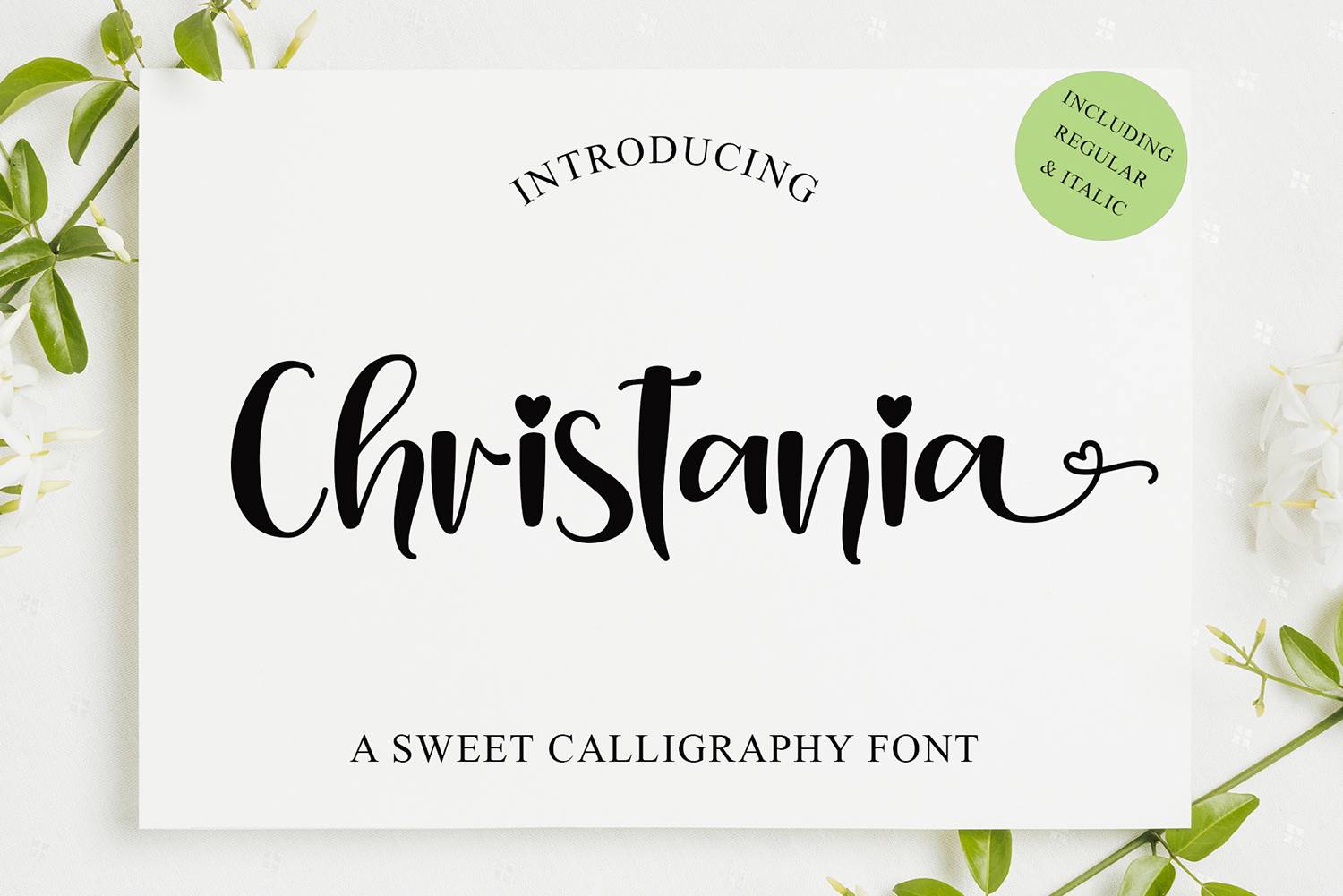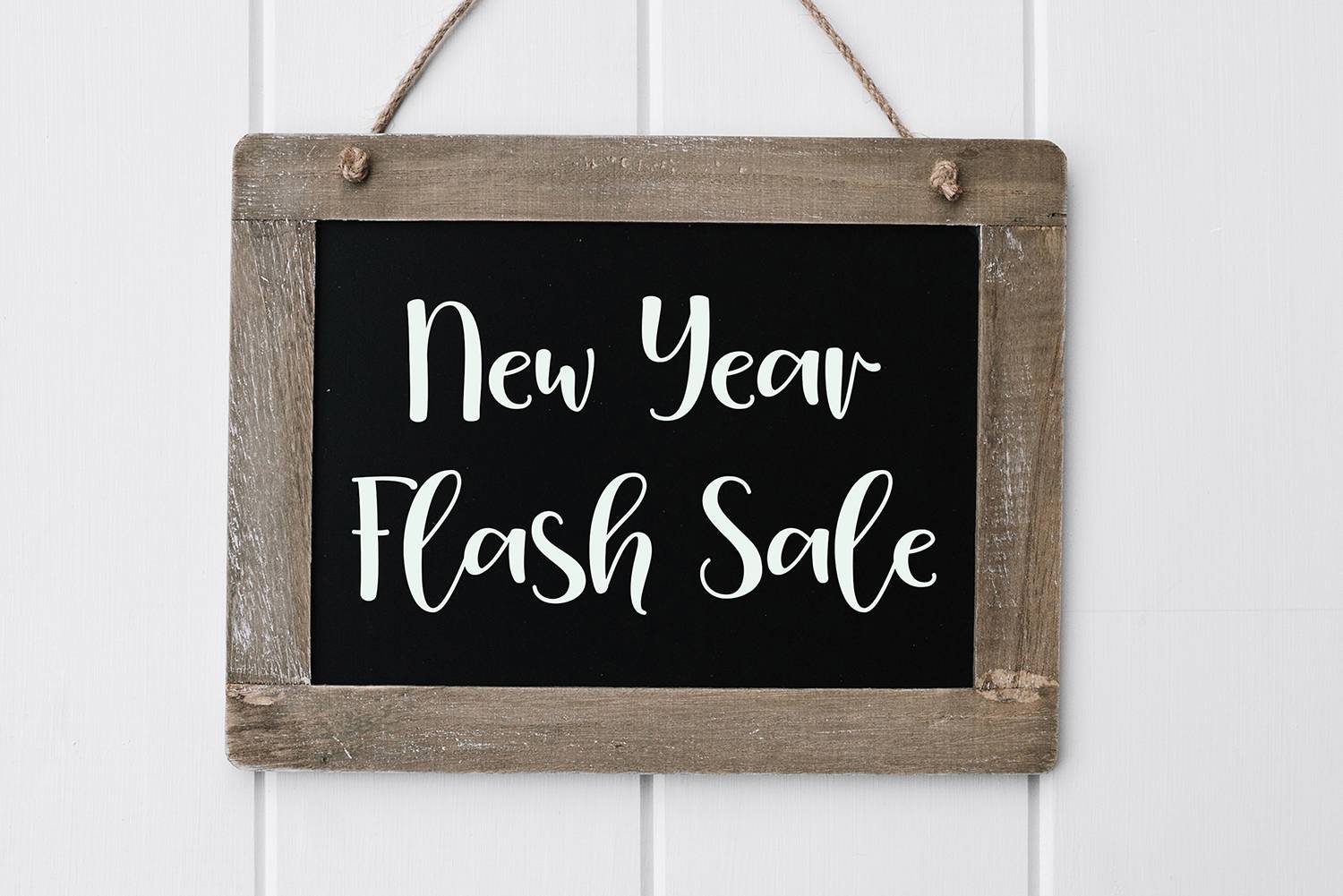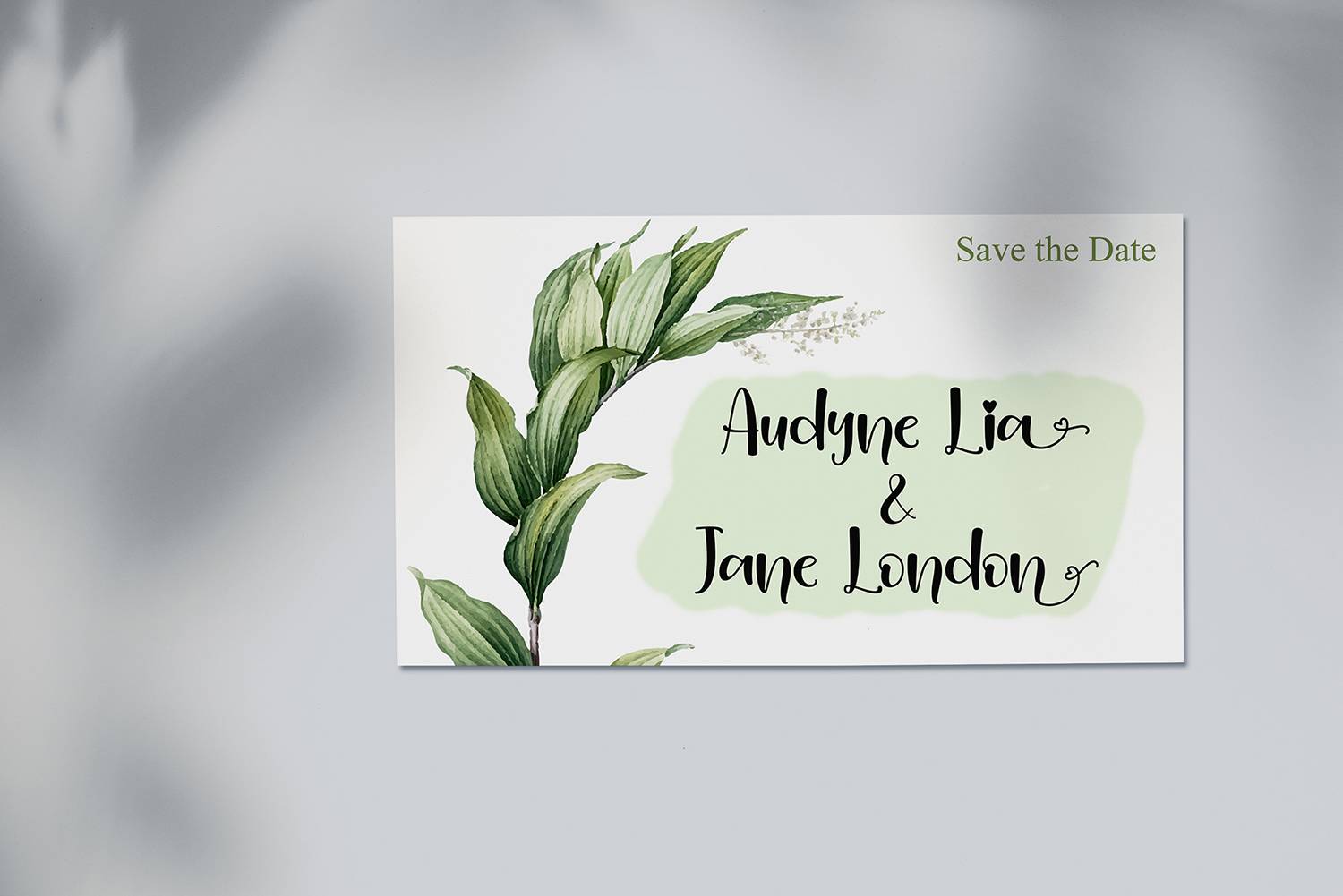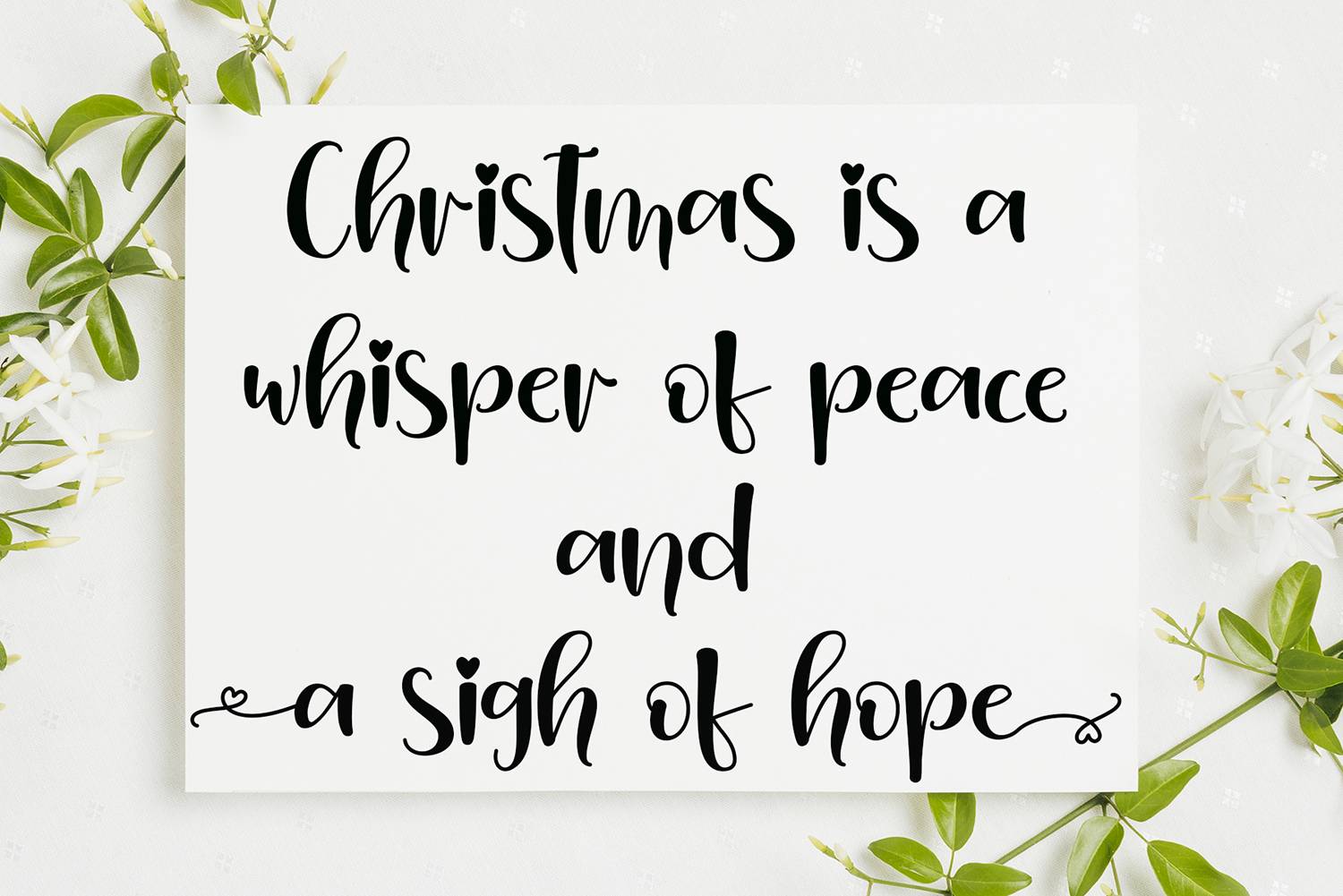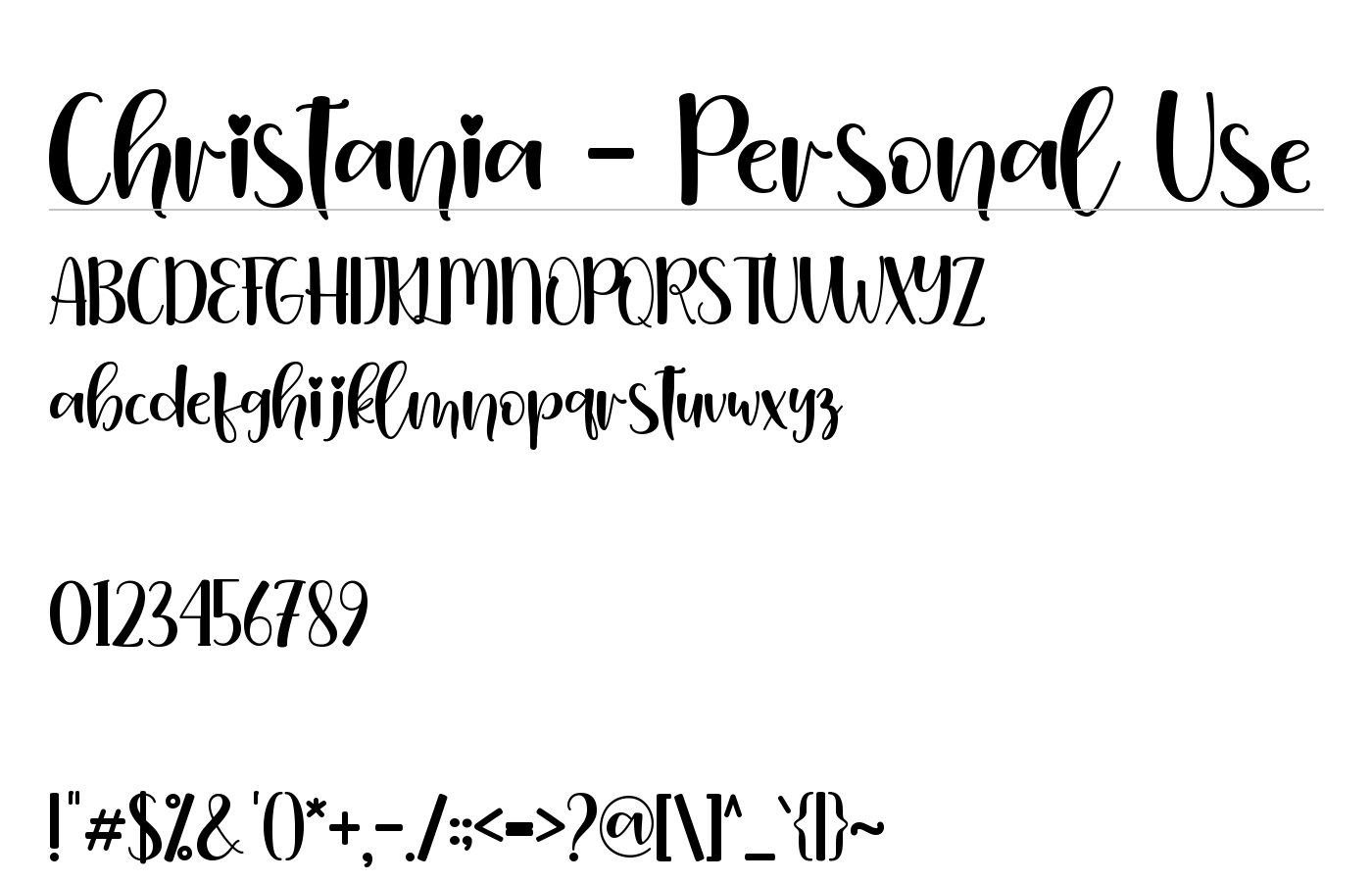
Christania is a playful and elegant handwritten script font characterized by its tall, narrow letterforms and charming heart-shaped dots on the i's. With its smooth, flowing strokes and unique quirky details, this font exudes a friendly and whimsical personality, making it ideal for creative projects, invitations, and branding that seeks a personal, warm touch. Its decorative style works best for headlines, logos, and greeting cards where a lively, expressive vibe is desired.
| Font family | Christania Font |
| Designer | Endri Sulistyawan |